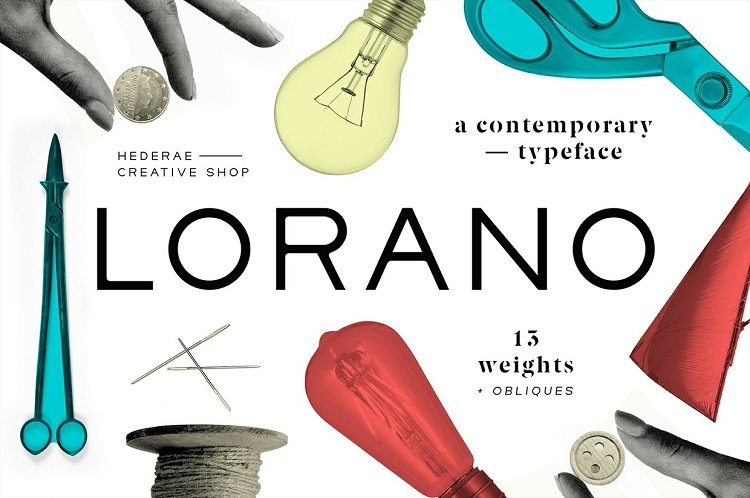
Lorano Typeface
Lorano typeface is a sans-serif font, designed and shared by Hederae Creative Shop.
Lorano suitable for work purposes, Strong, Geometric, Essential. A typeface inspired by modern rationalism Movements & Minimalism. Lorano letterforms and are great for user interfaces, logotypes, short text, magazines or track it for a sophisticated look outwide.